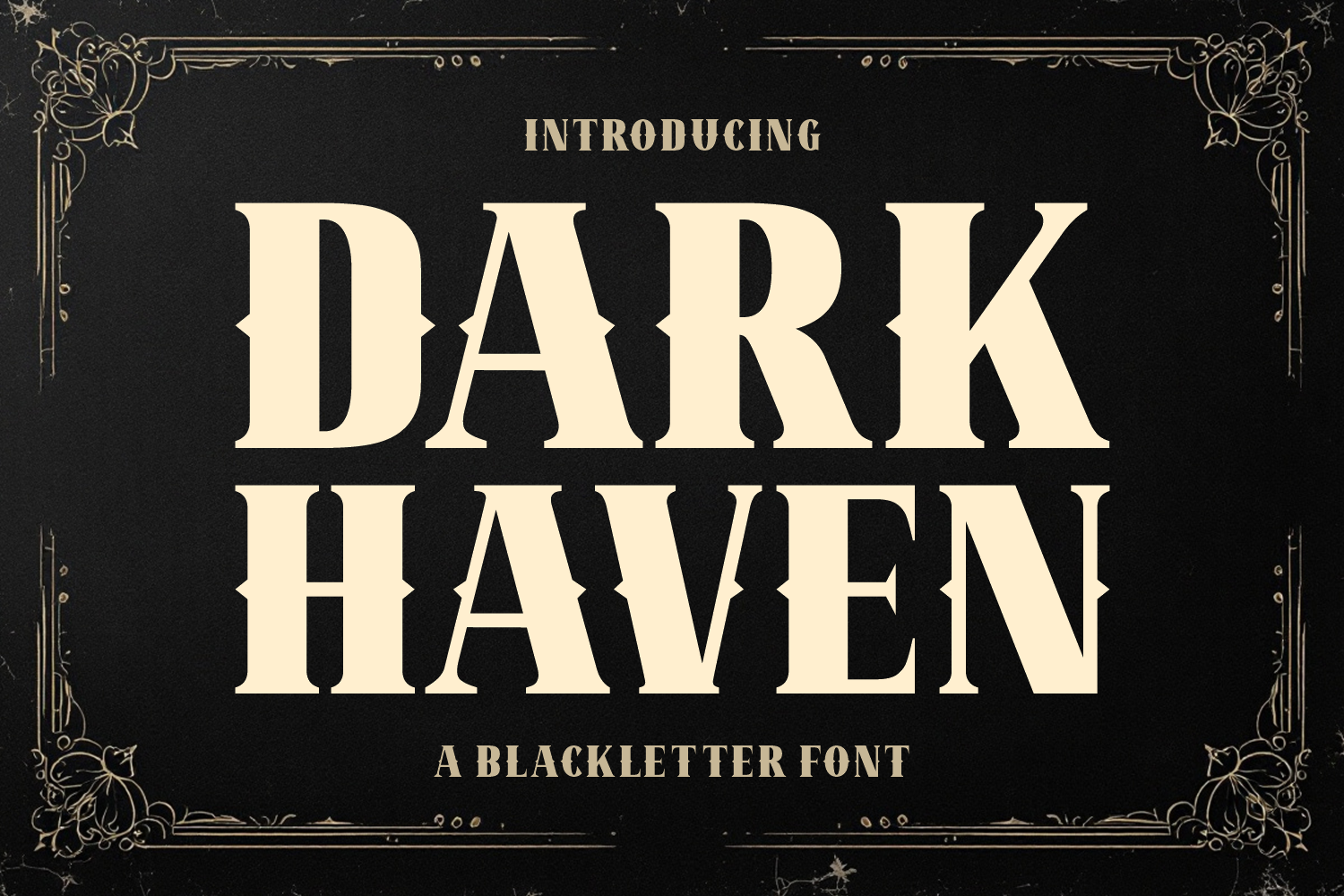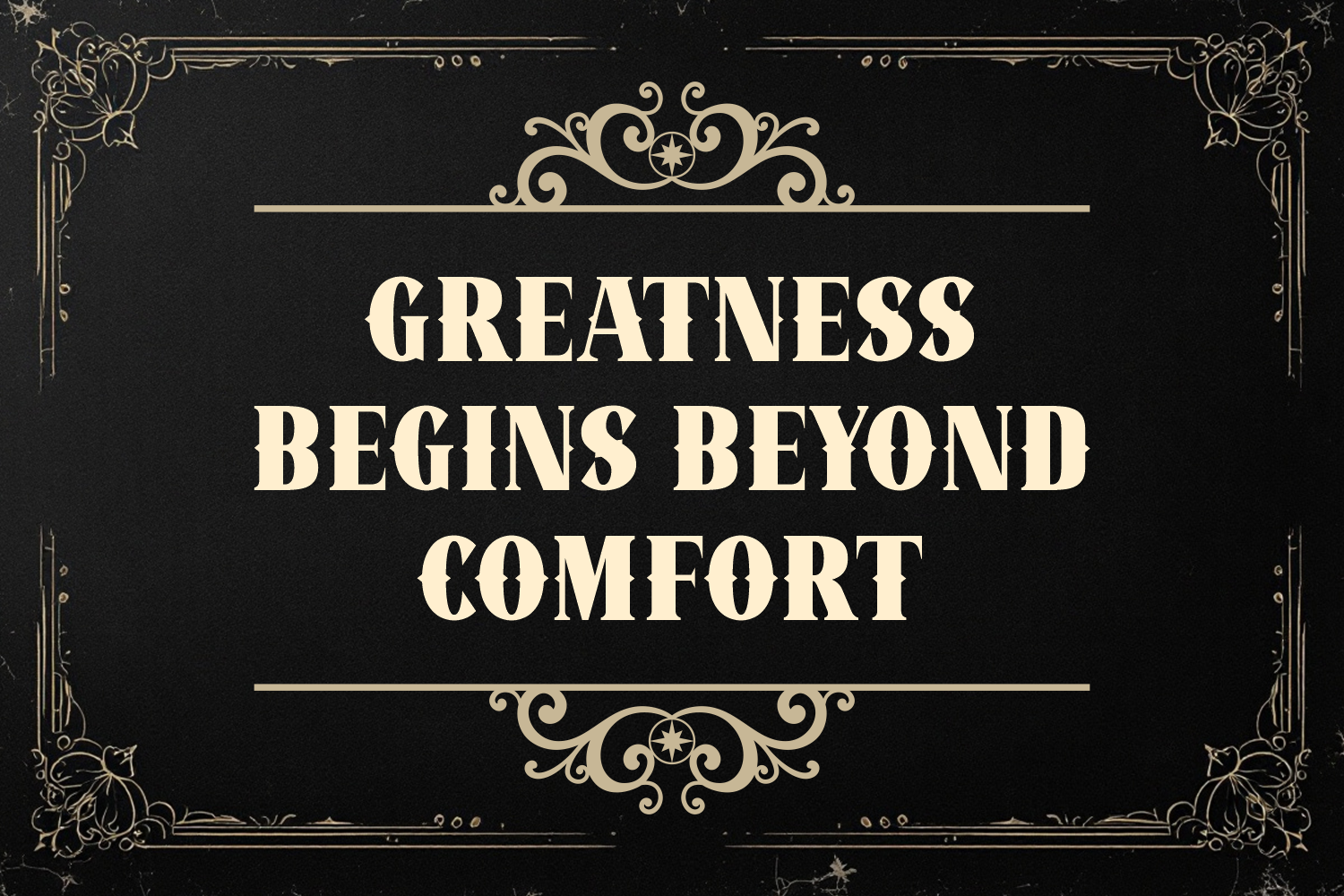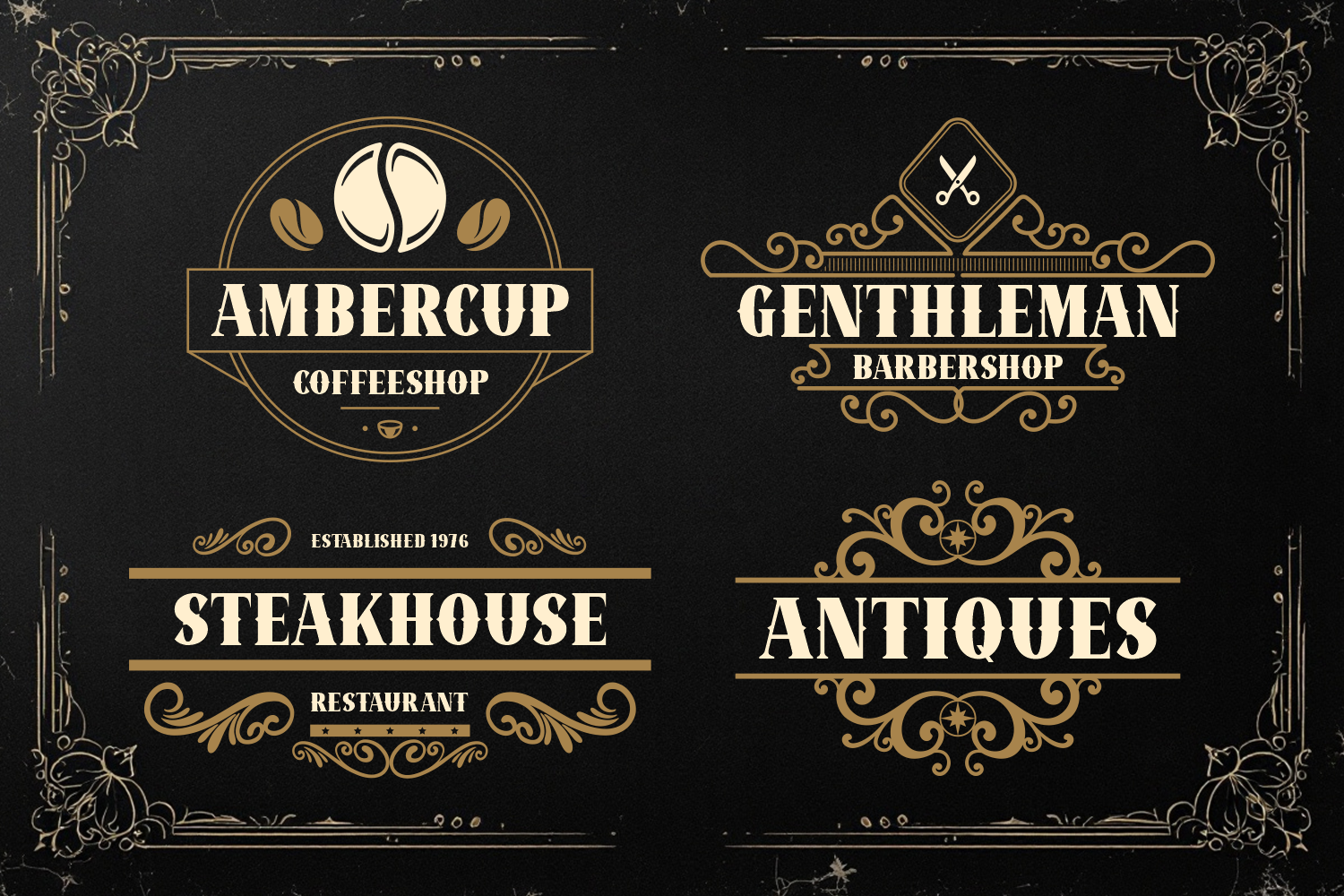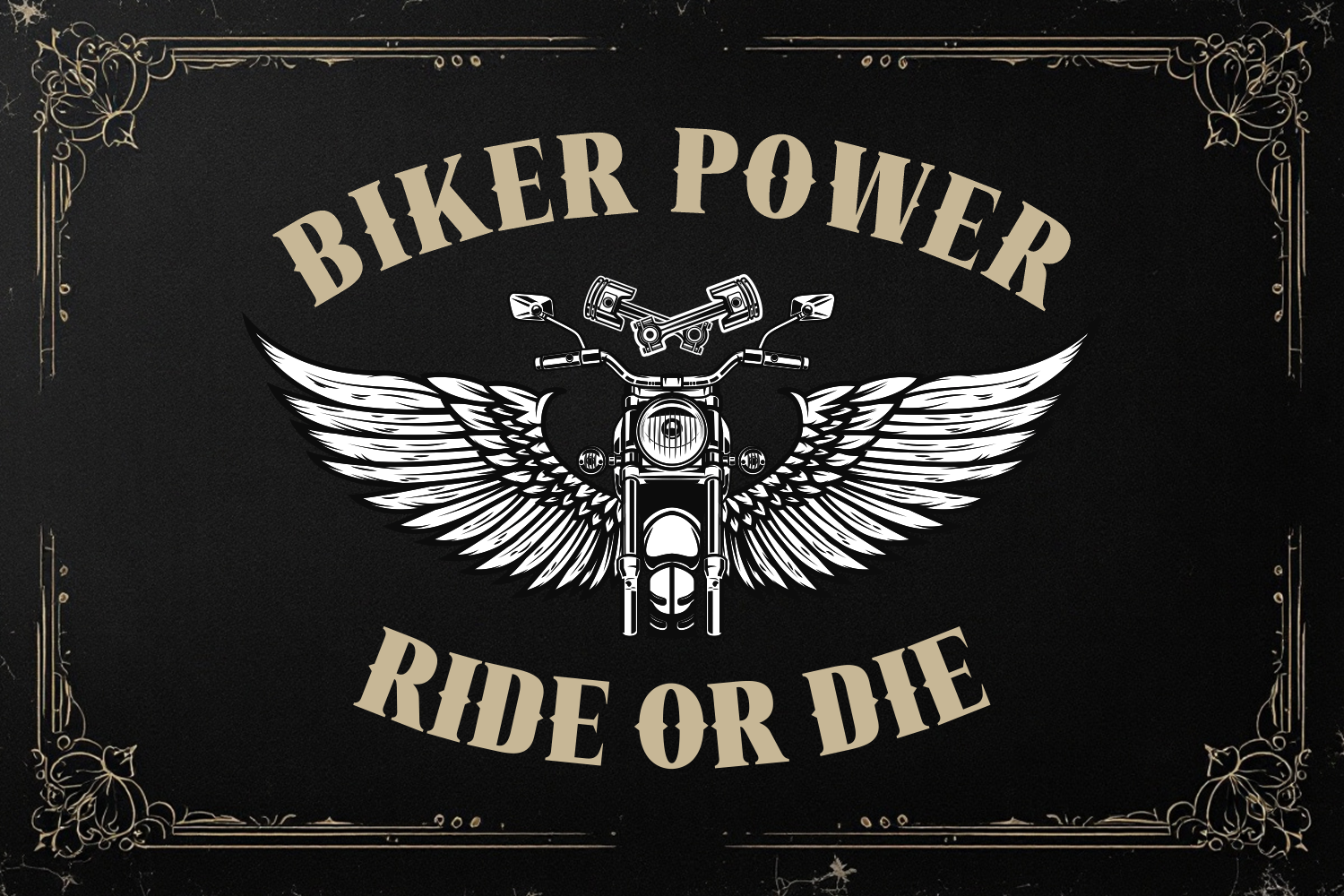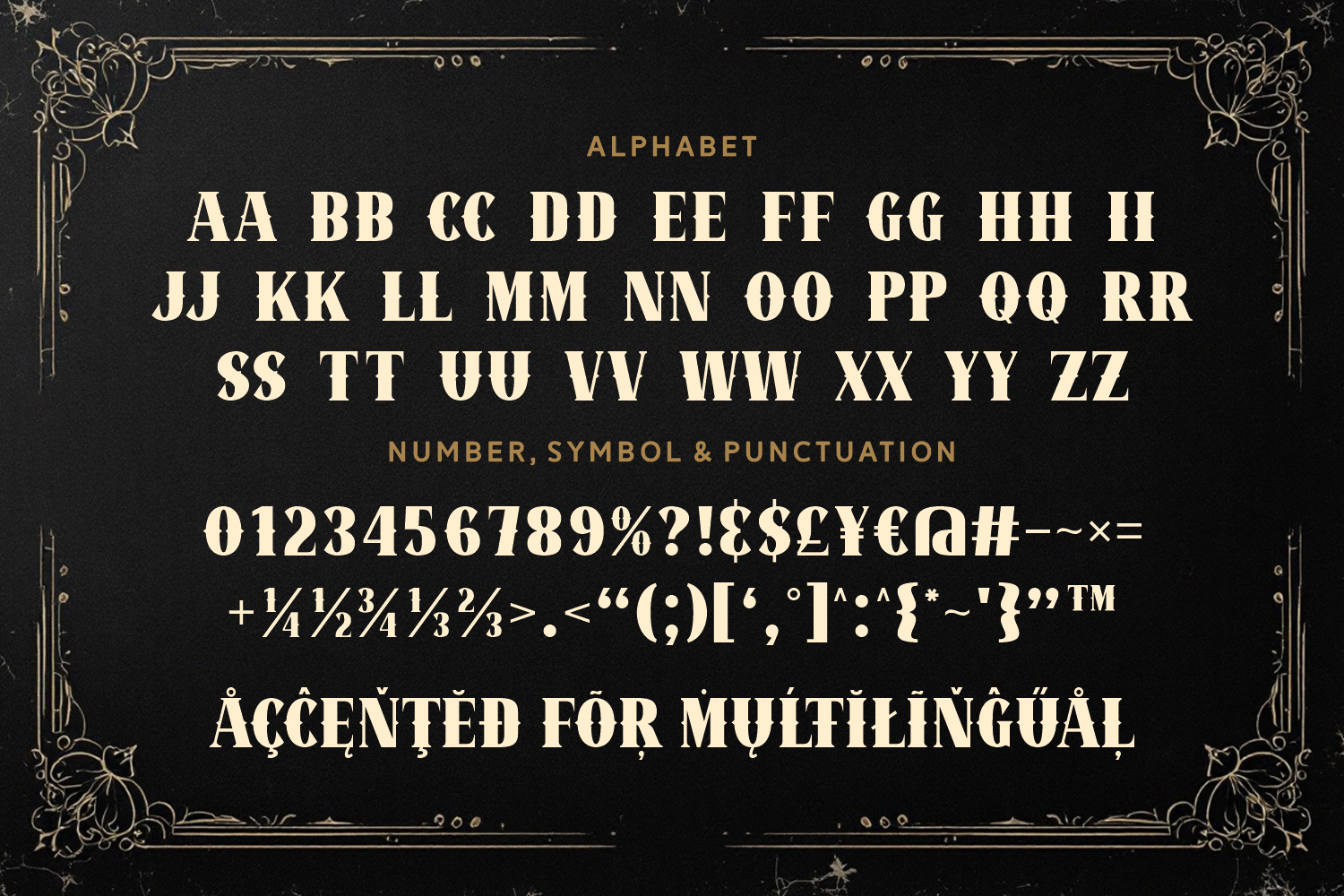
Dark Haven is a refined blackletter font with thick strokes and sharp serifs that balance elegance and drama. Its classic yet edgy feel is perfect for gothic branding, horror titles, and premium liquor packaging. With timeless structure and dark sophistication, it adds depth to any design.